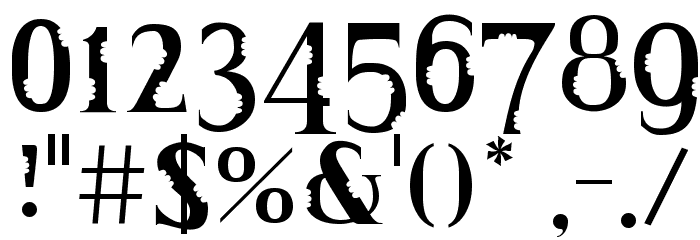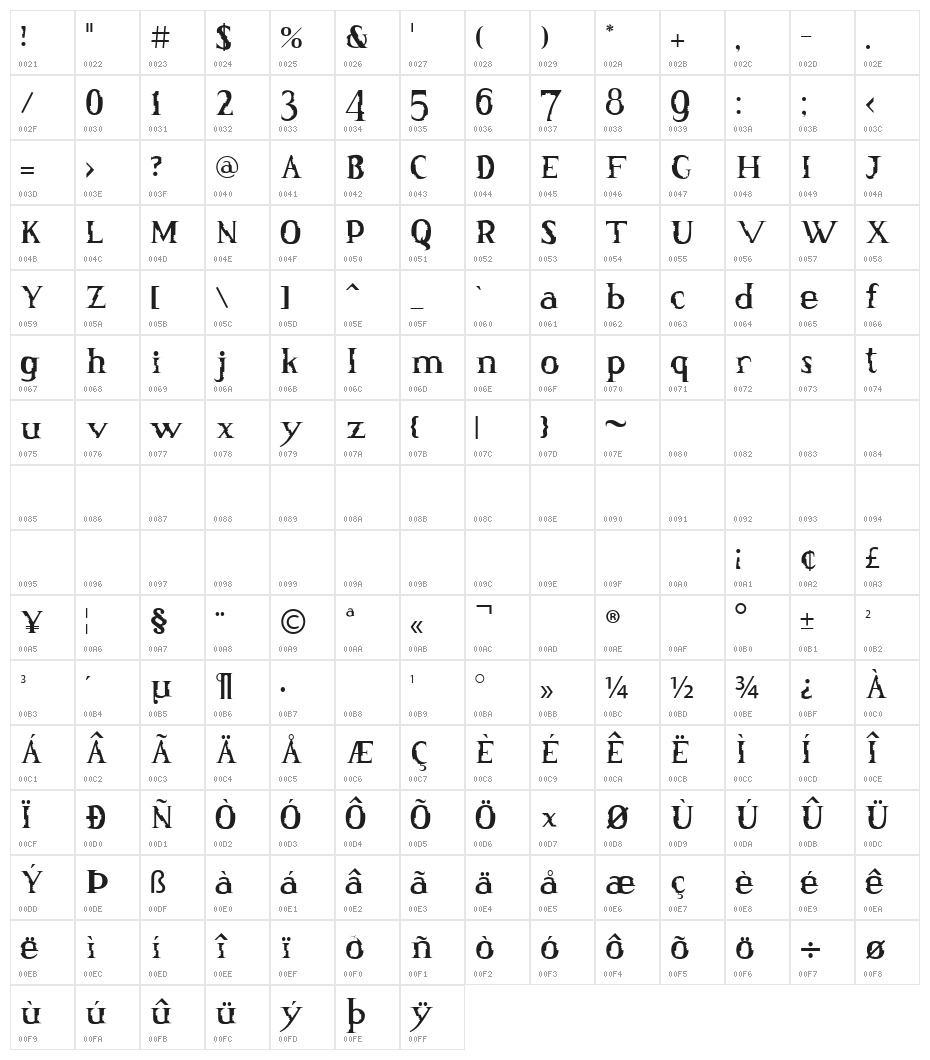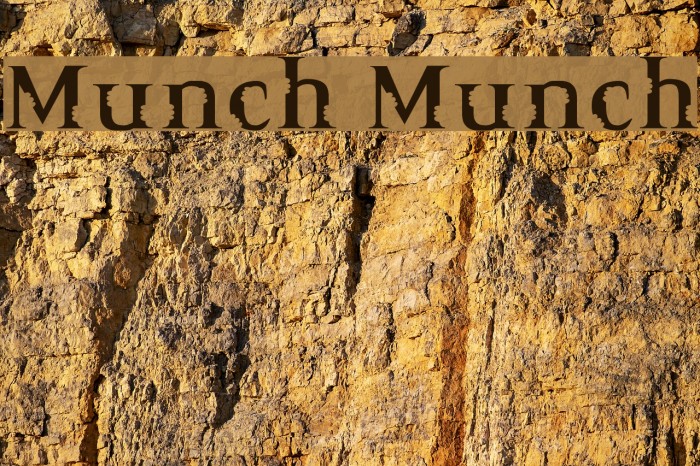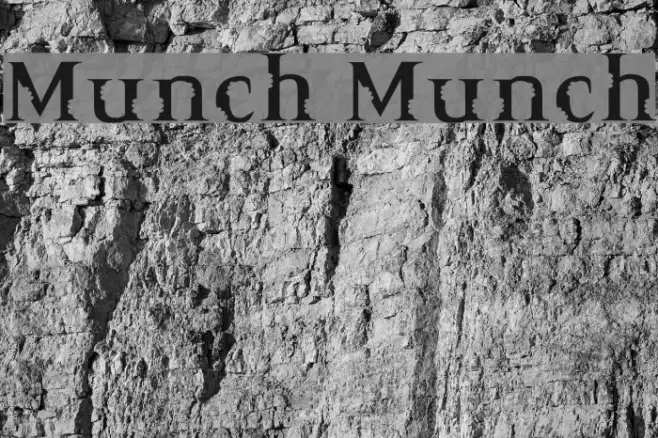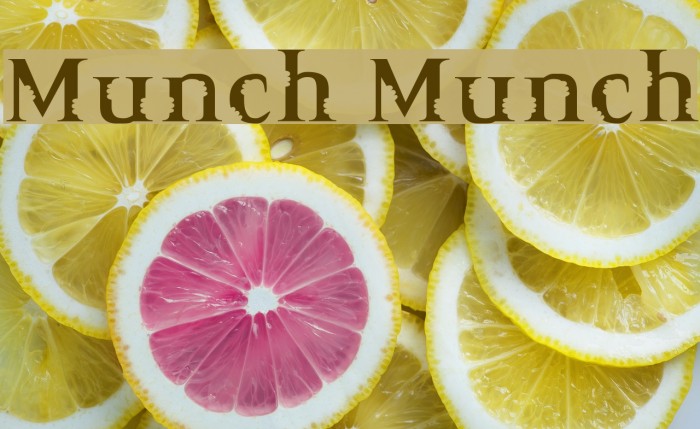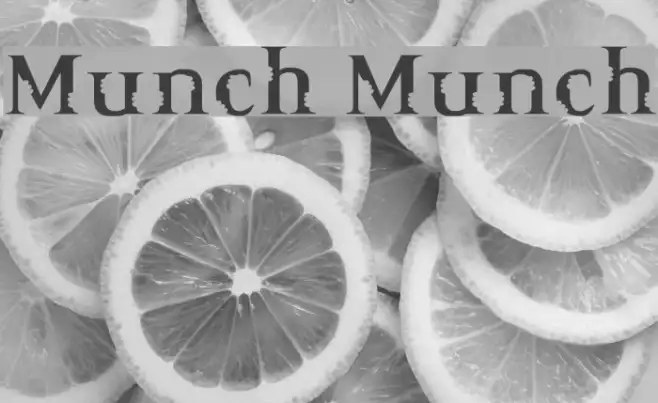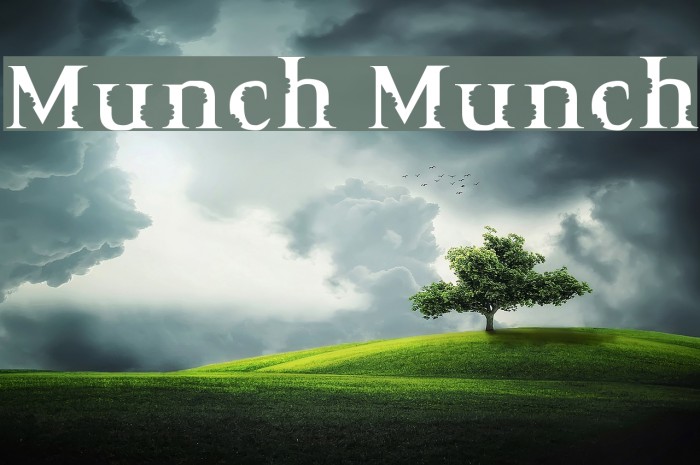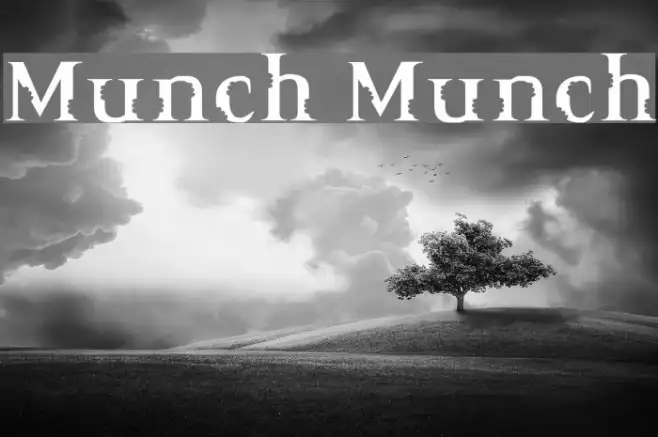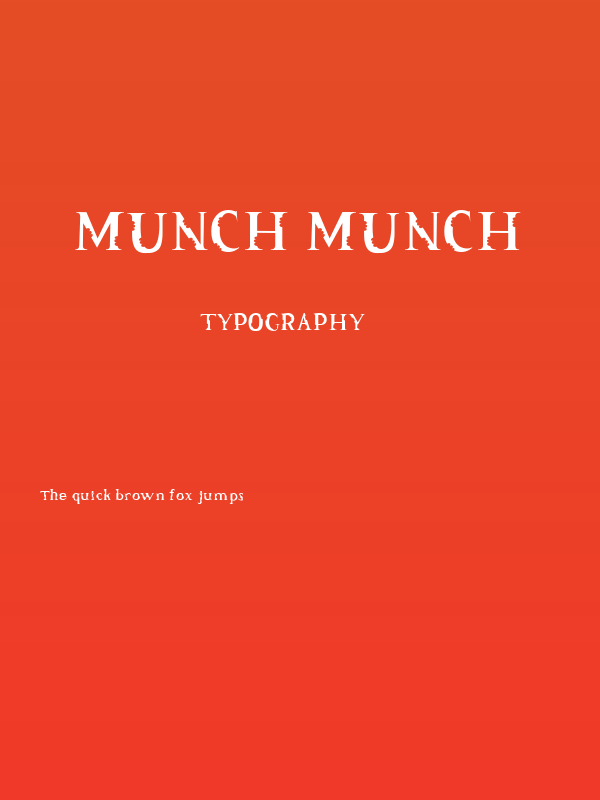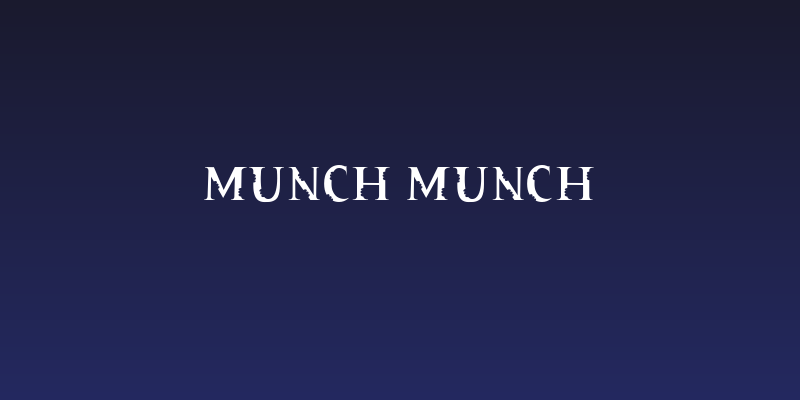
Munch Munch Font
Munch Munch Description
This font features a unique and edgy design with a distressed, eroded appearance. The characters have a bold, impactful presence with irregular edges that give a sense of decay or wear. The uppercase and lowercase letters maintain a consistent style, with sharp serifs and a slightly condensed form. Numbers and special characters follow the same aesthetic, making the font suitable for projects that require a gritty, rebellious look. The overall design is striking and memorable, ideal for creating a strong visual impact.
| Proposed Projects | Ideal for album covers, posters, branding for edgy products, or any design needing a rebellious, gritty aesthetic. |